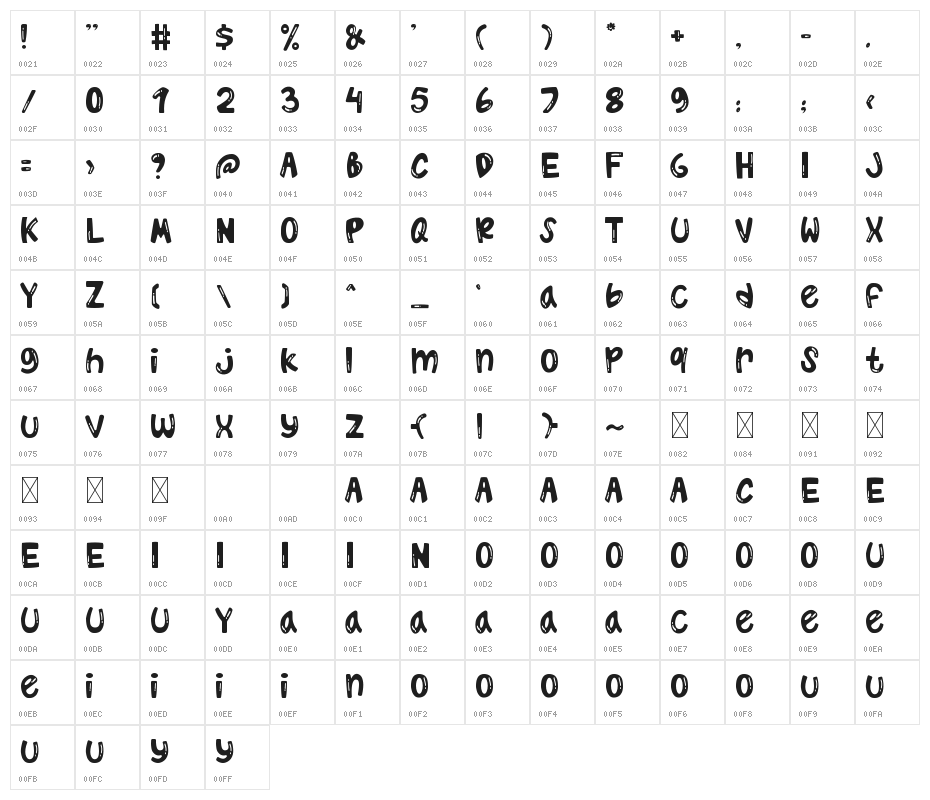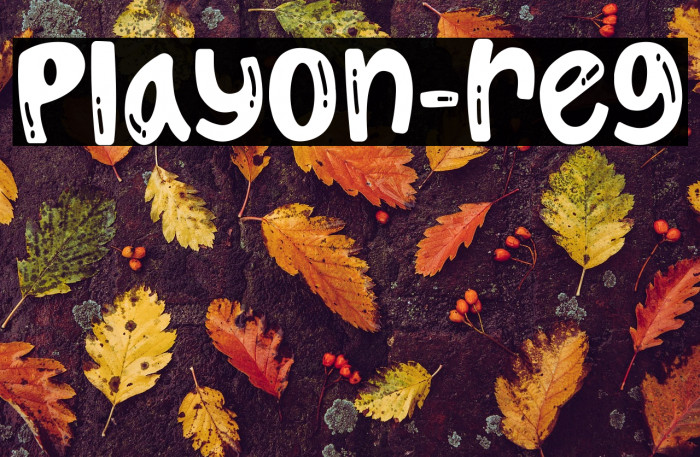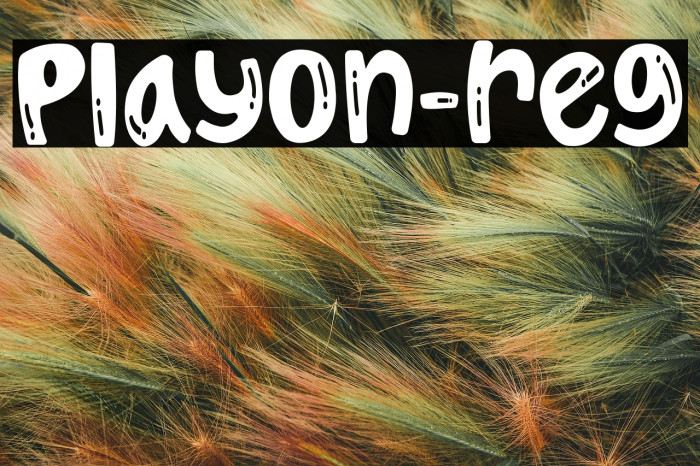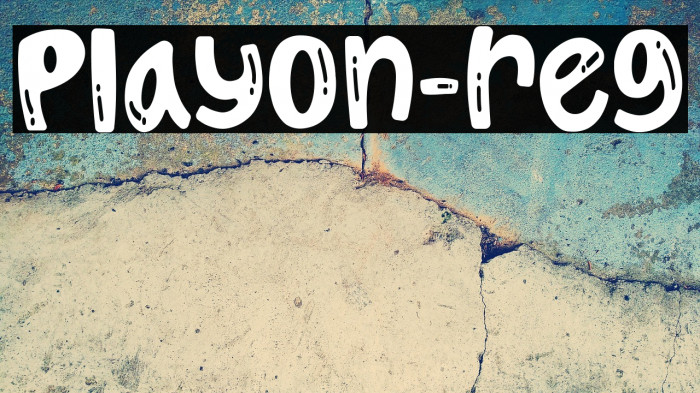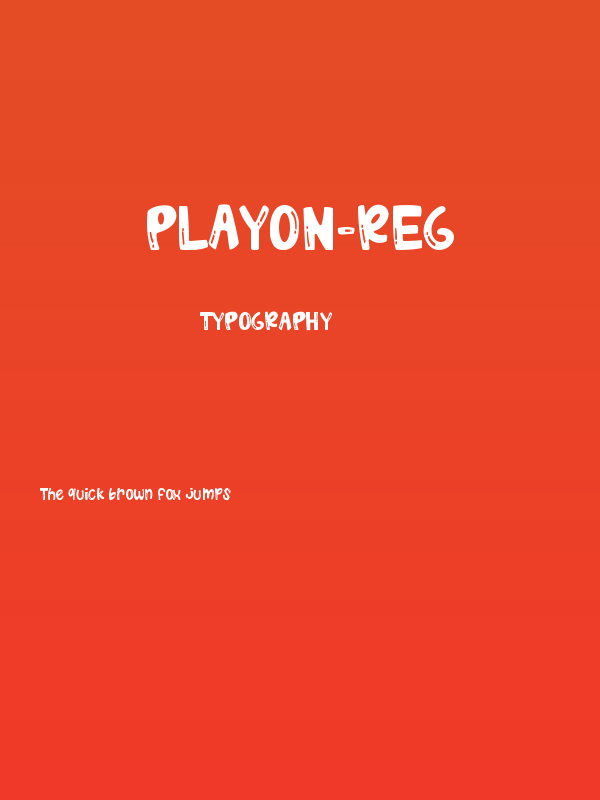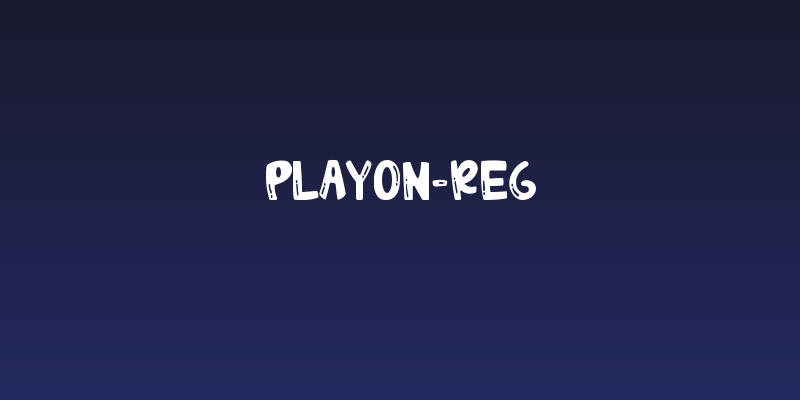
Playon-reg Font
Playon-reg Description
This playful and whimsical font features bold, rounded characters with a hand-drawn aesthetic. Each letter is uniquely styled with irregular shapes and subtle decorative elements, giving it a lively and energetic feel. The font maintains a consistent thickness throughout, with slight variations that add to its charm. It is highly legible and stands out due to its quirky and fun design, making it ideal for projects that require a touch of creativity and personality.
| Overall Style | Whimsical, Playful |
| Proposed Projects | Perfect for children's books, playful branding, party invitations, and creative posters. |